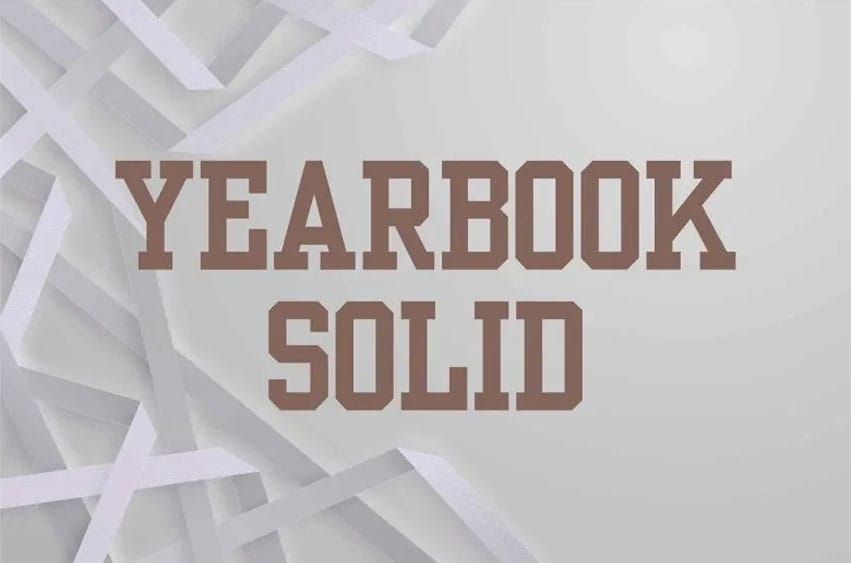
Yearbook Font is designed with long strokes to give an impact on text strength and is recommended for extended texts. This font was designed for the use in professional places and what is worth to add, Yearbook font will suit any environment! Since it can be used for both short and long texts, this font has become very popular among artists and designers who have used it to create beautiful designs – which goes to prove it. It can even be used with other fonts to enhance the visual appearance of a text or a design!Therefore, its application has become more frequent due to this flexibility.
When one examines more closely at any artist’s portfolio, one can note them being grateful for this wonderful font; in fact, many great designs have been developed using this font – another reason as to why this font is widely used.